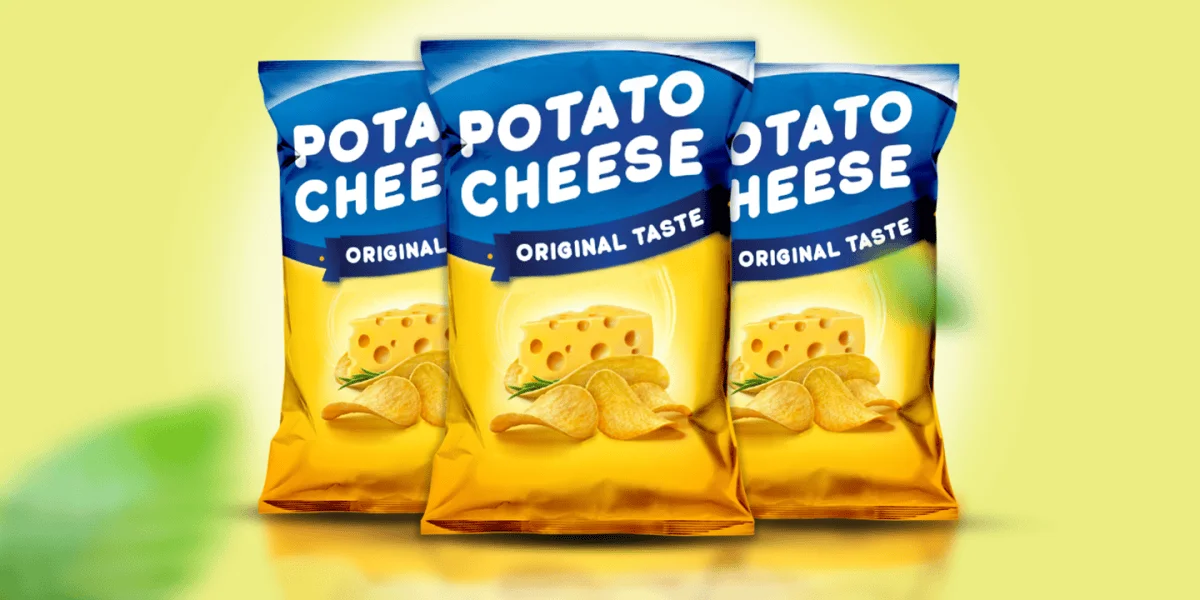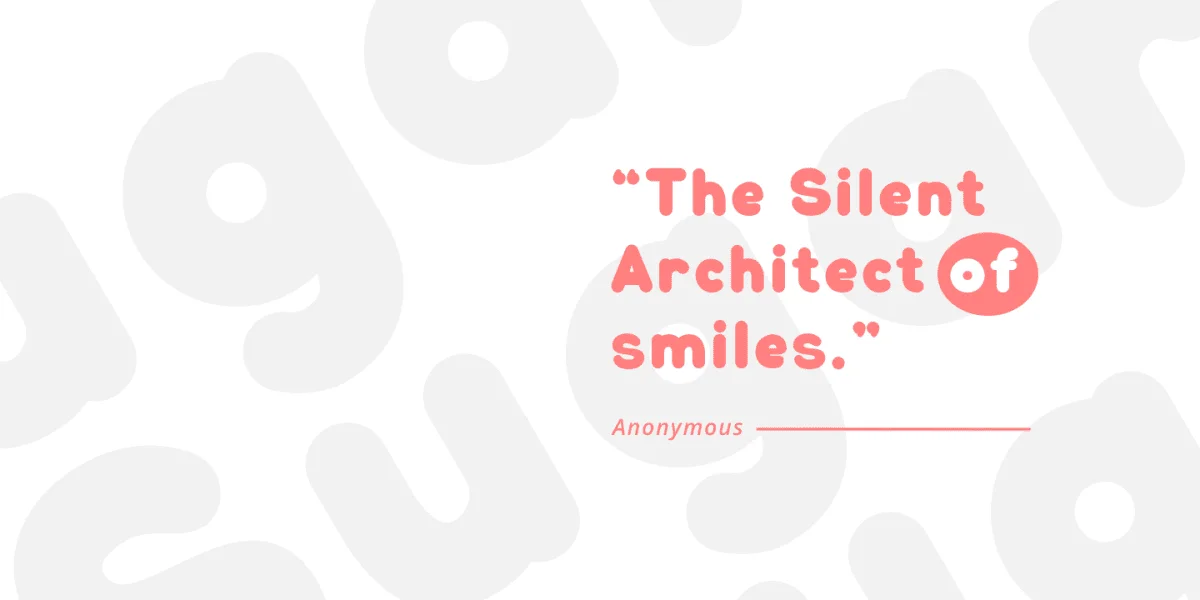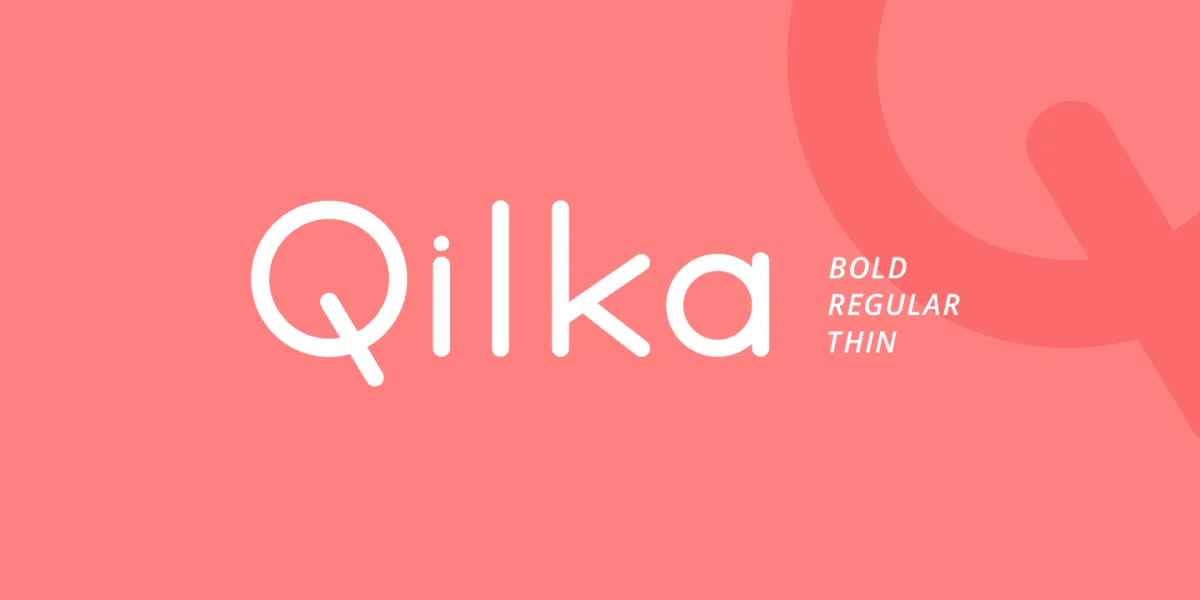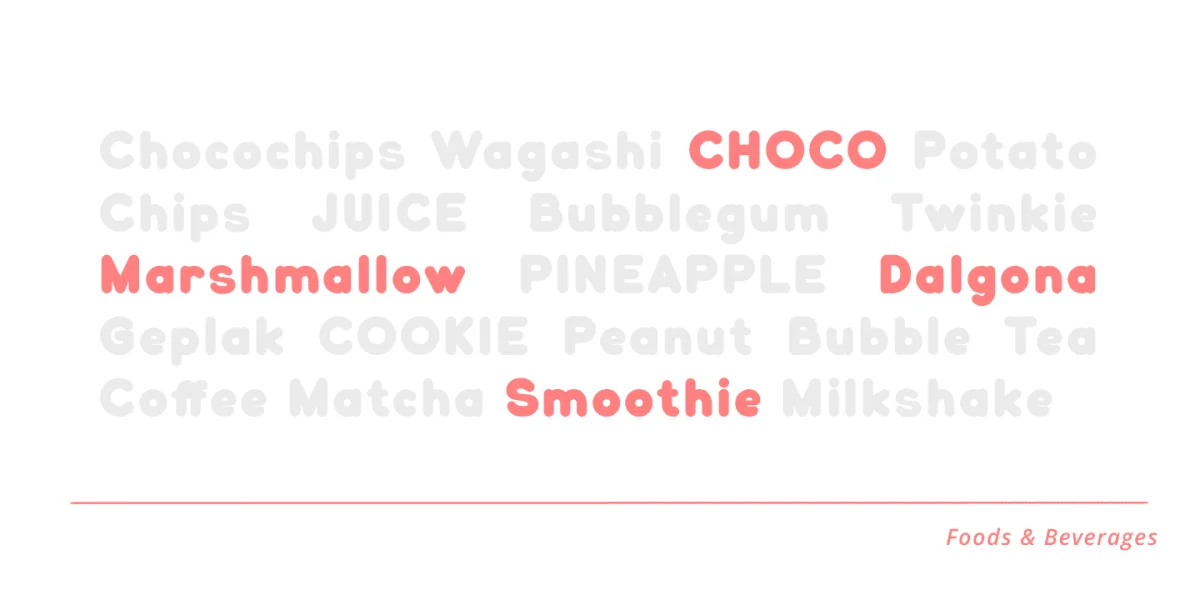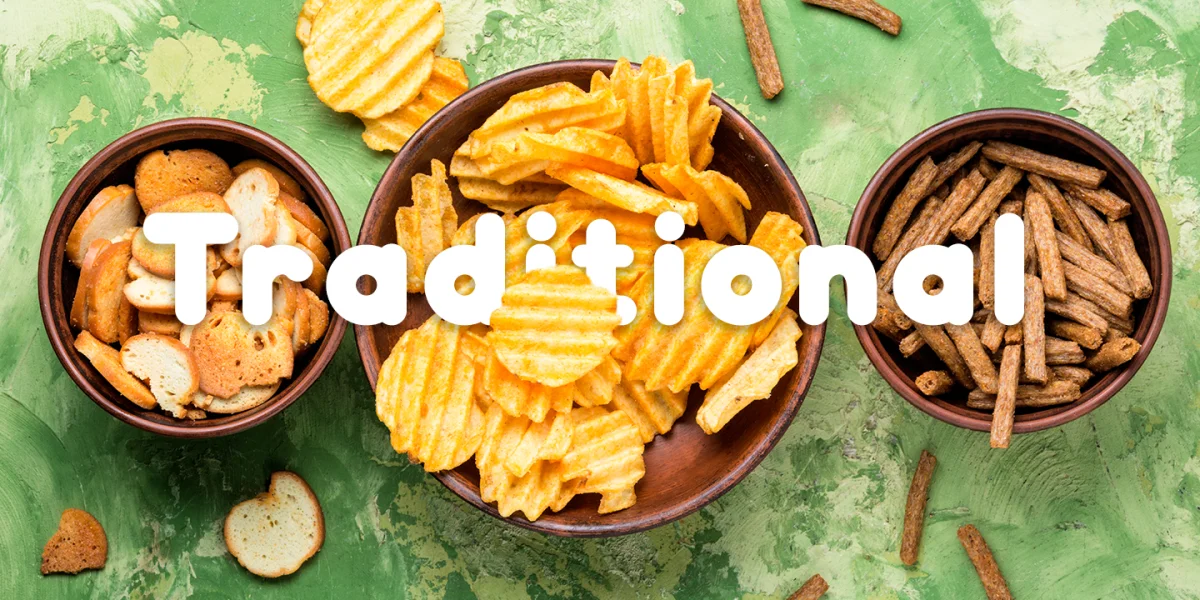
Qilka Display Font: Embrace playfulness with Qilka, a vibrant and versatile typeface crafted for impact. Perfect for branding, logos, flyers, and more, Qilka adds a lively touch to your designs. Its unique personality and dynamic characters make it an ideal choice for projects that demand creativity and a dash of joy.